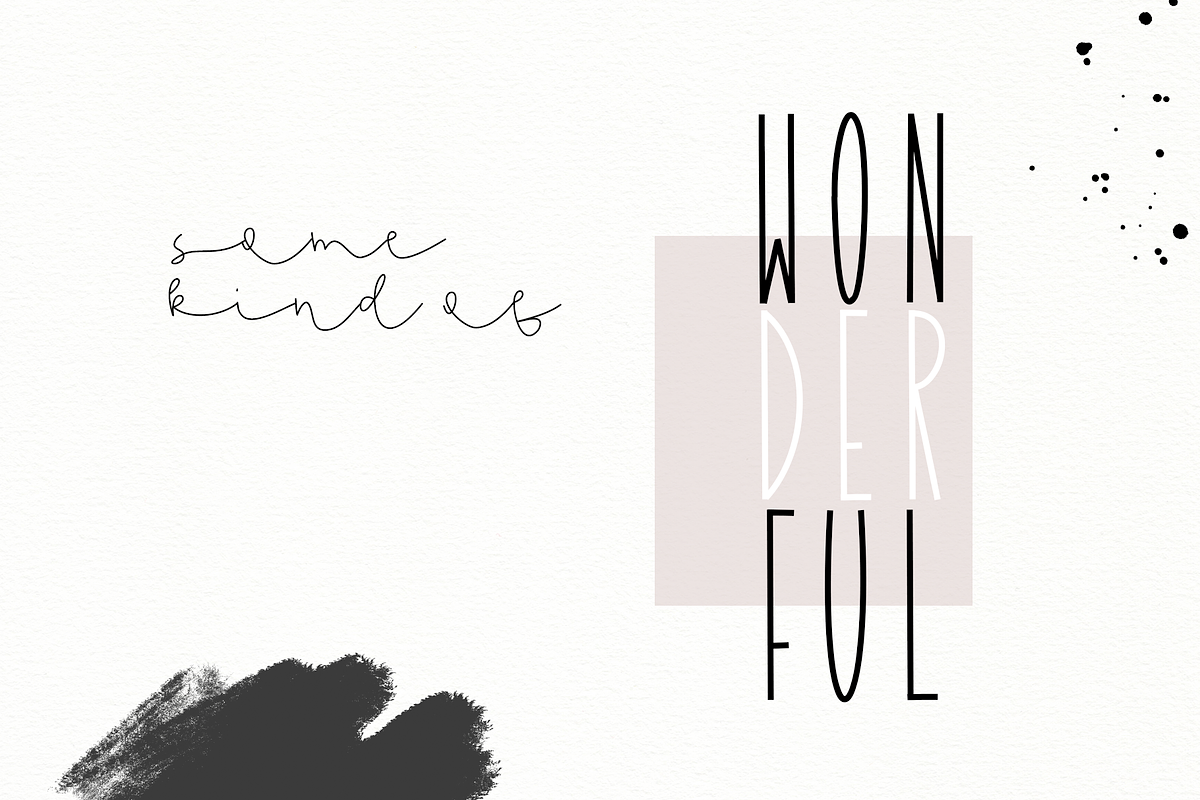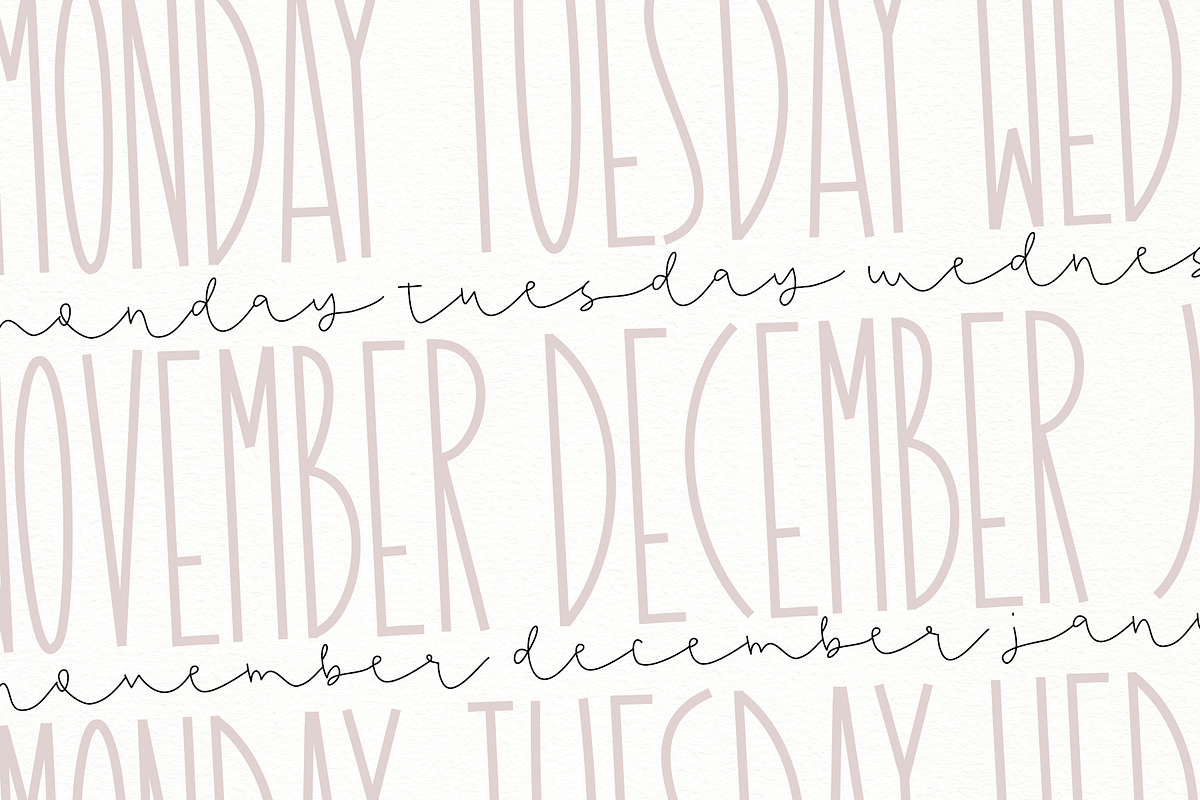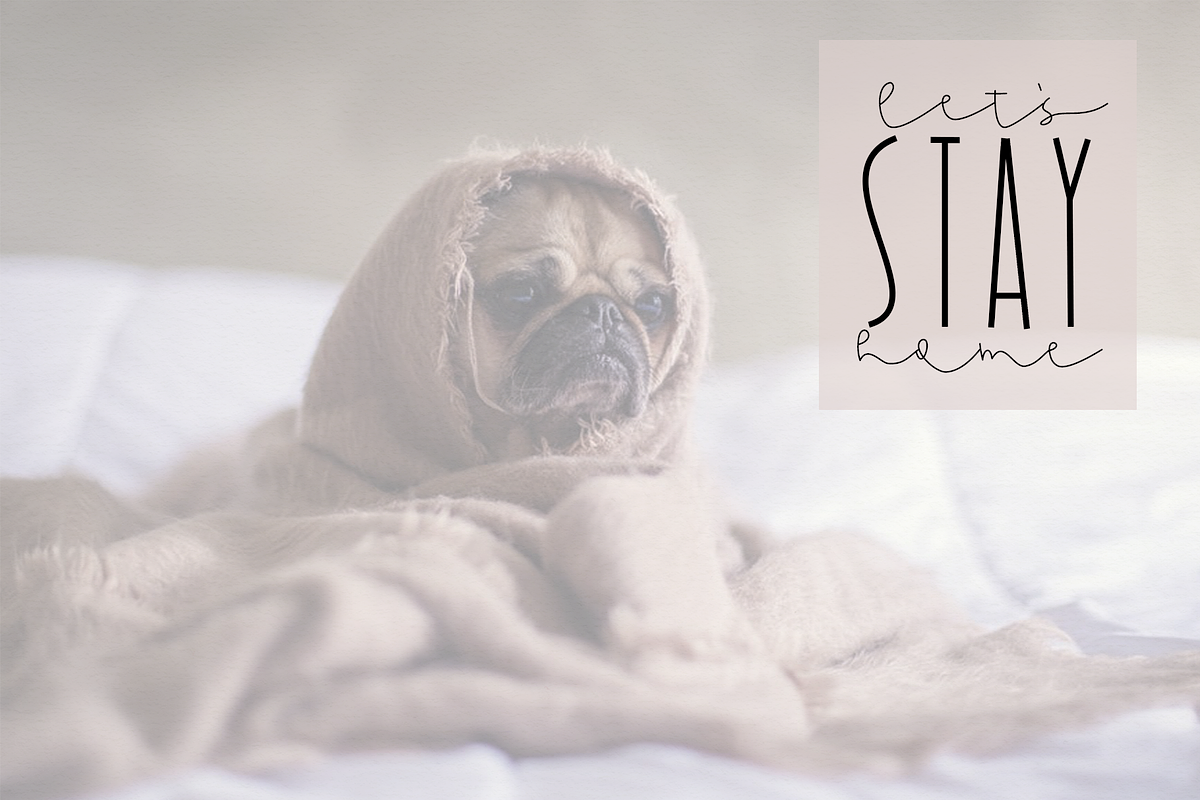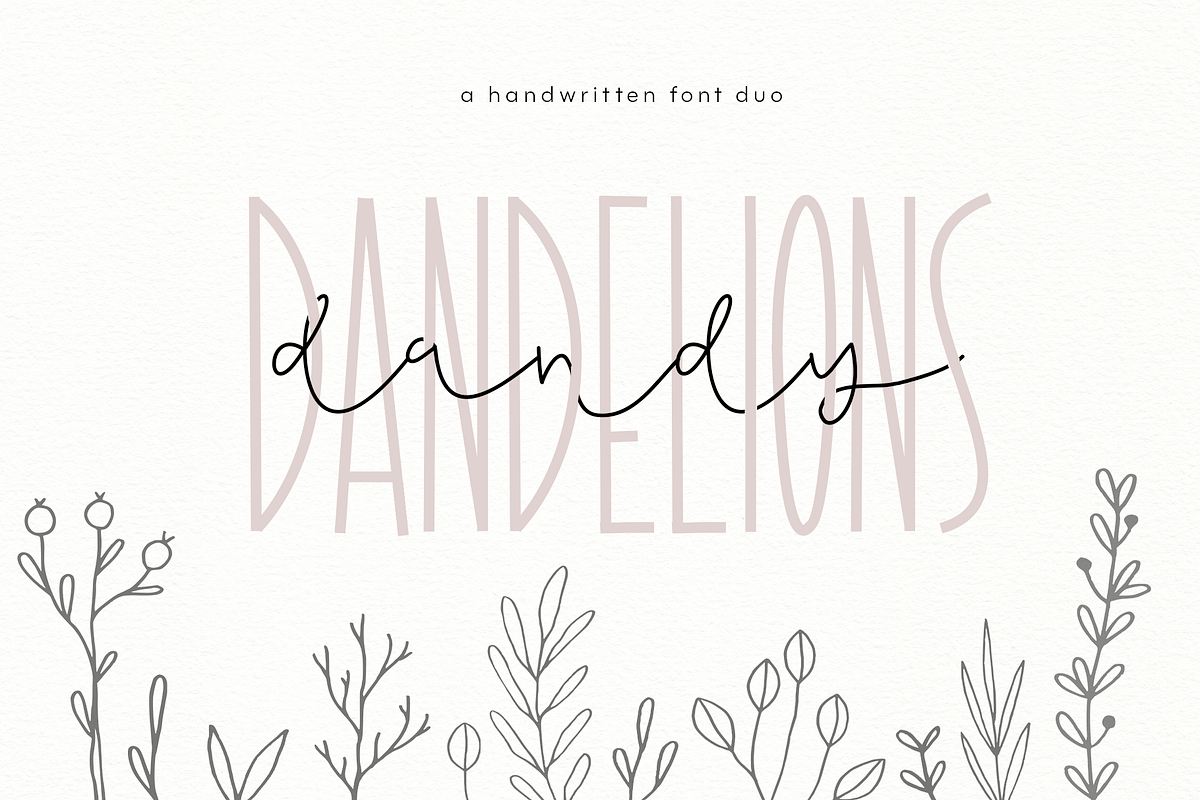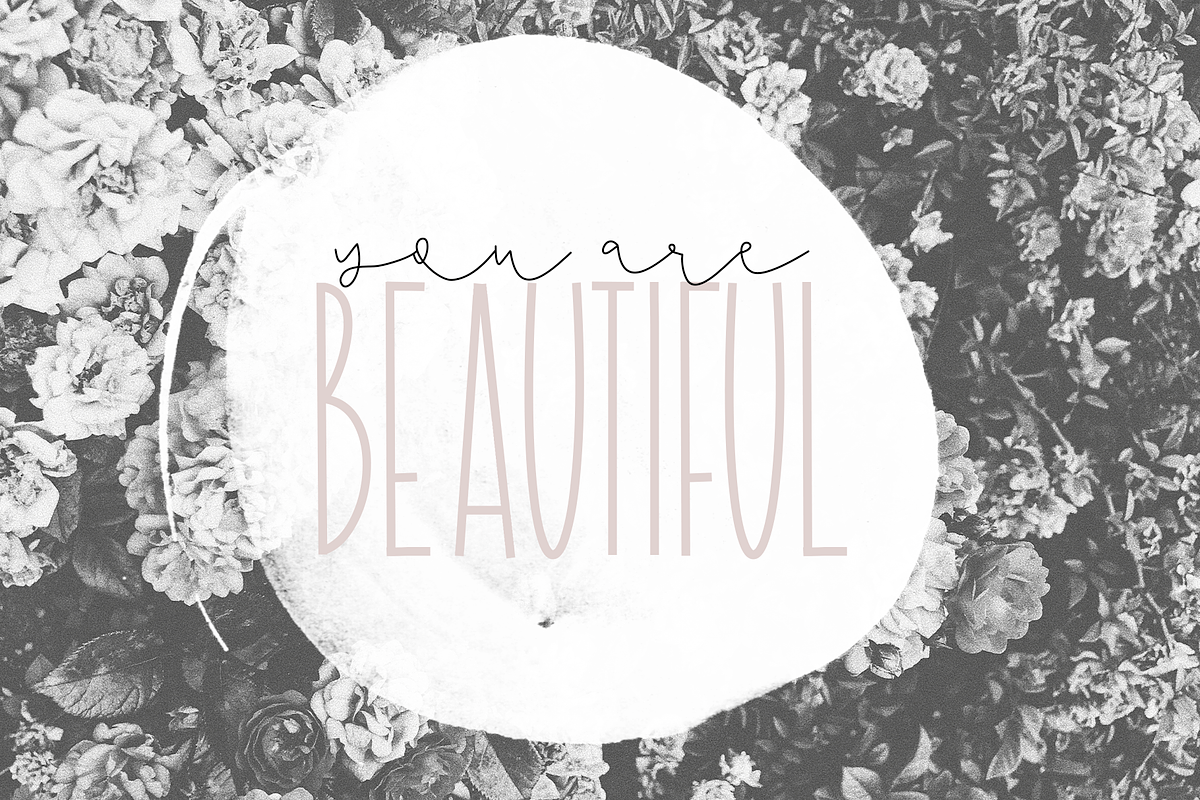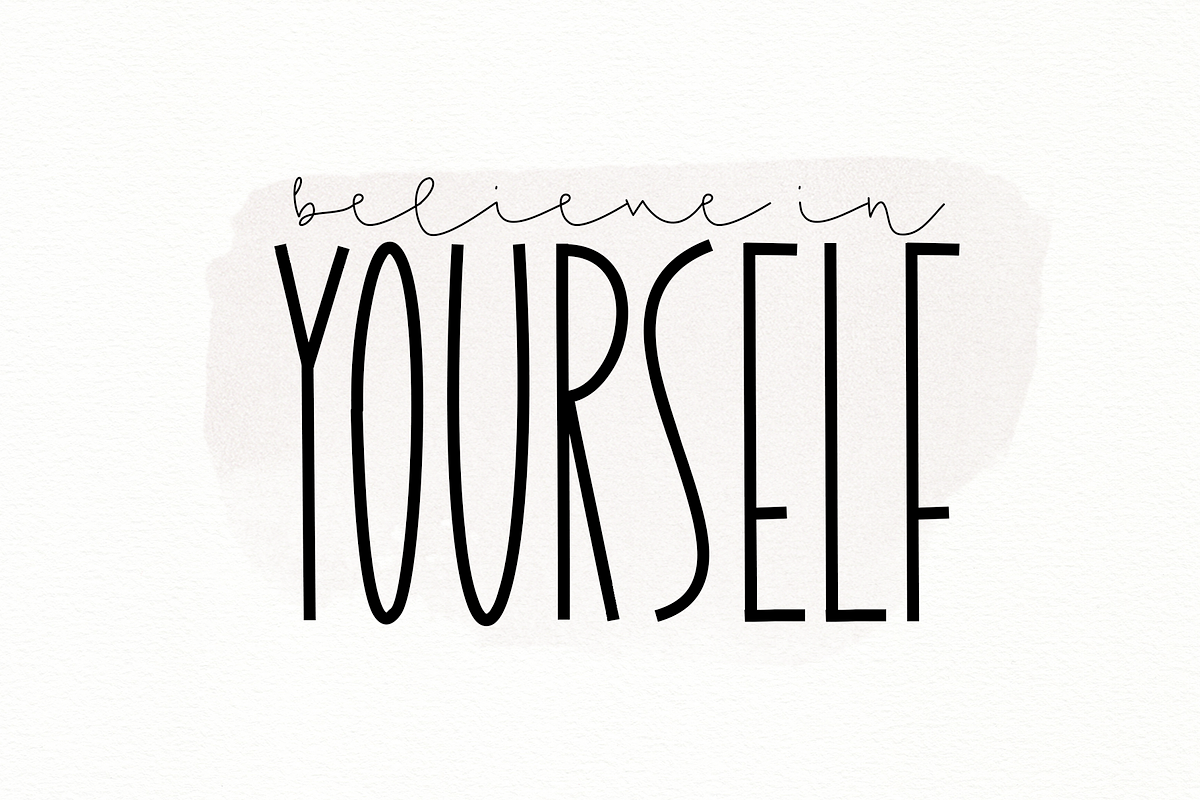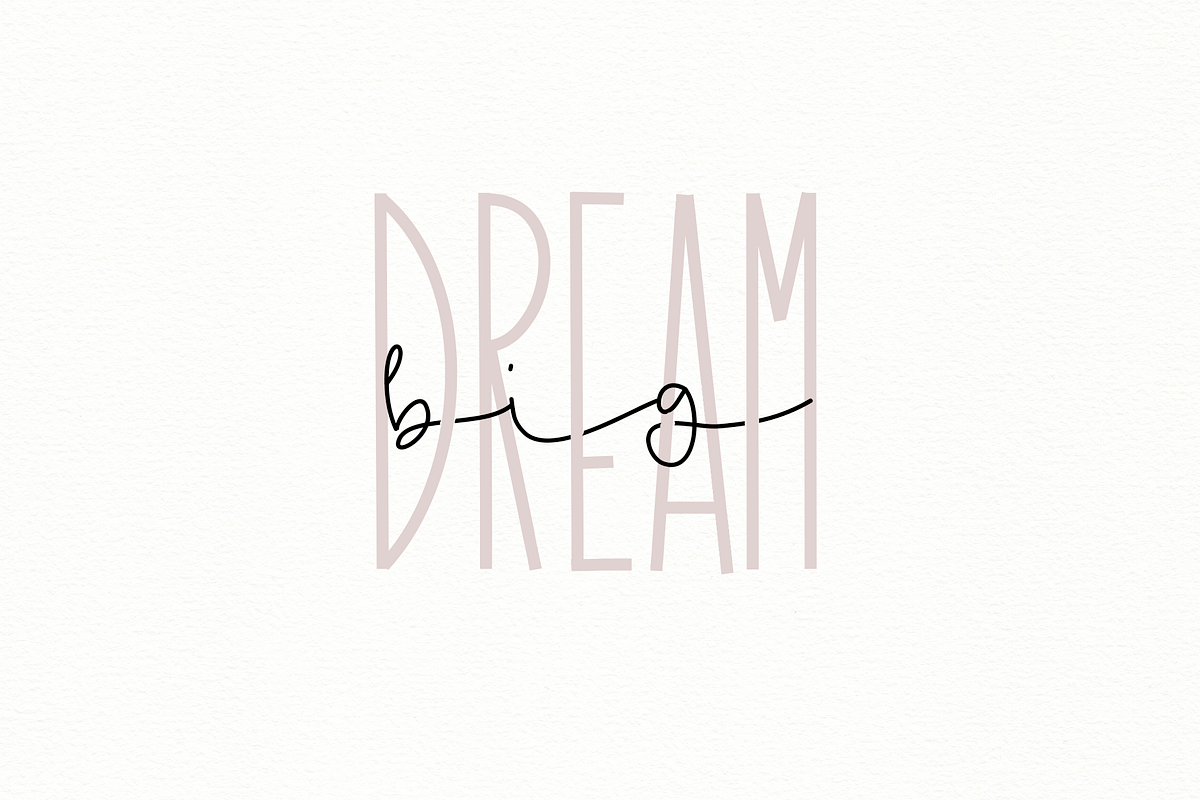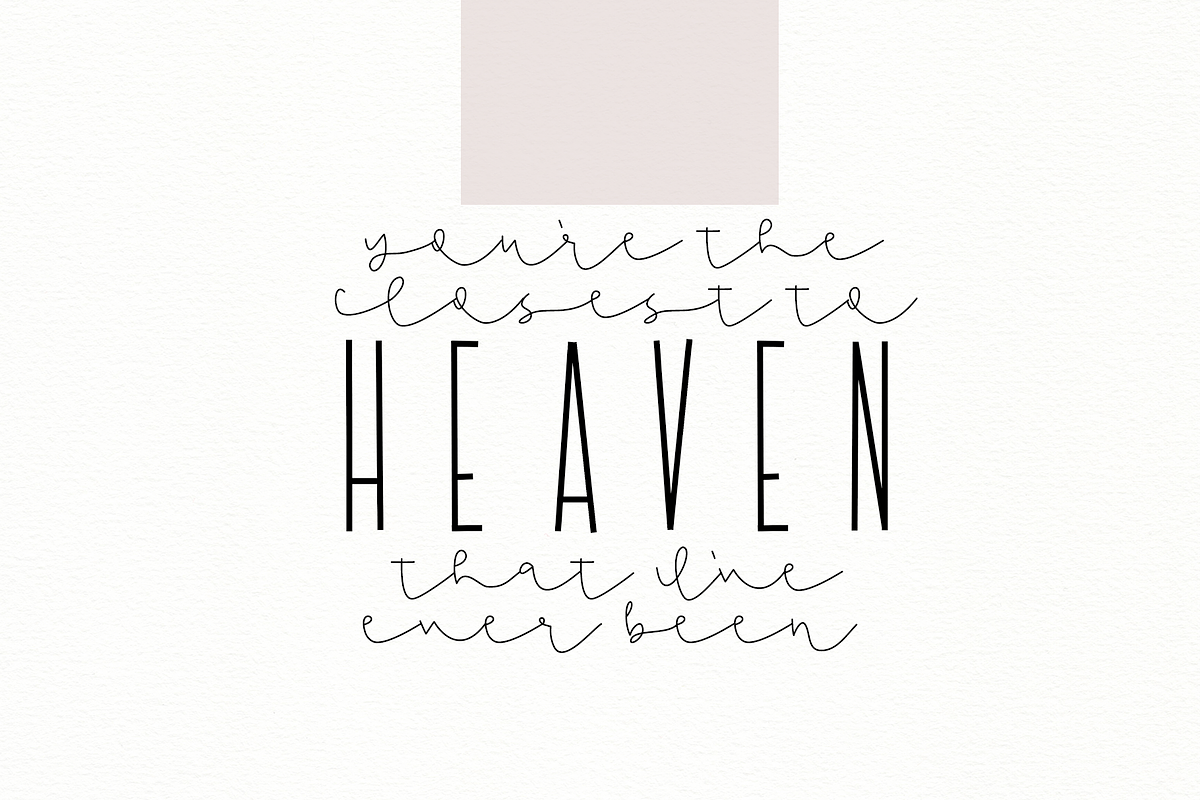
Dandy Dandelions - A Script Font Duo
Dandy Dandelions is a cute handwritten font duo. These two fonts work well together or apart!
Dandy - A delicate handwritten script font.
Dandelions - A tall and condensed handwritten font.
This duo works great for quotes, headings, blogs, logos, invitations and more!
Both fonts include accent characters.